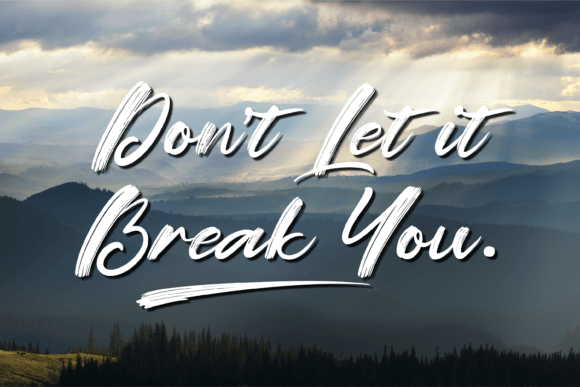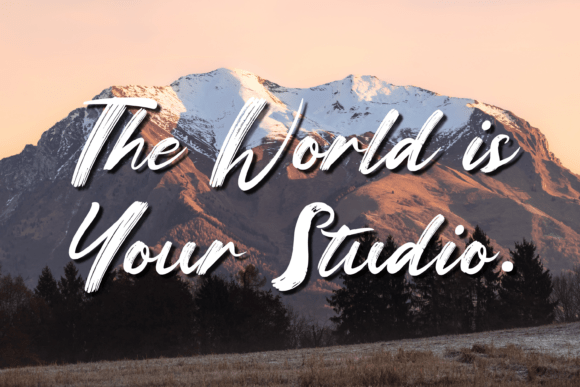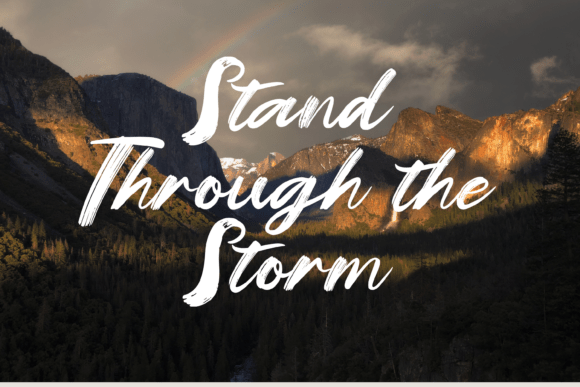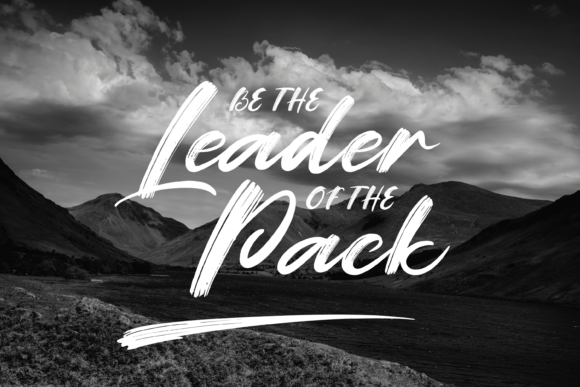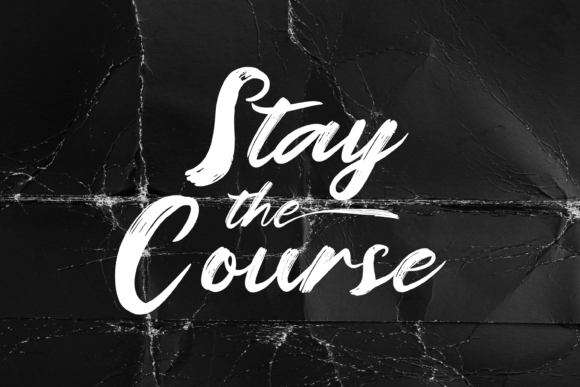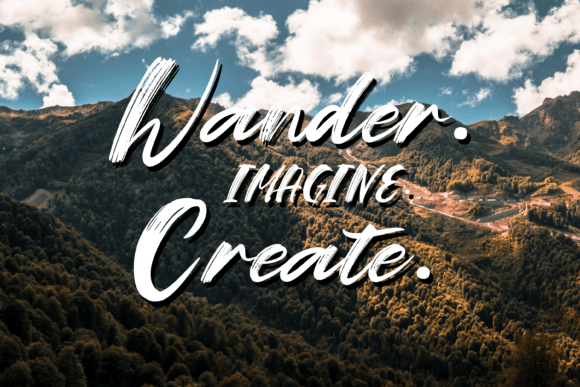
Introduction to Lumra Font
Have you ever stared at a blank canvas, waiting for the perfect words to come to life? That’s where the magic of typography begins, and the right font can make all the difference. As a designer, you know how crucial it is to find the perfect match for your creative project. That’s why we’re excited to introduce you to the Lumra Font, a stunning brush script that’s about to revolutionize your designs.
With its bold, expressive strokes and just the right touch of imperfection, Lumra Font brings a personal, artistic edge to your typography. Whether you’re crafting logos, quotes, invitations, or packaging, this font is sure to give your design a unique, high-quality feel that’s hard to find with free downloads. Plus, its transparent background makes it easy to customize and integrate into your design resource.
Key Features of Lumra Font
- High-quality, professional font suitable for creative projects and design resources.
- Features a transparent background, making it ideal for use on images and graphics with complex backgrounds.
- Comes in a range of sizes and resolutions, including 72 DPI and 300 DPI, to suit various design needs.
- Unique, modern design that adds a touch of elegance to any project or document.
Honest Review: Lumra Font
As a designer, I’m always on the lookout for high-quality design resources to elevate my creative projects. Recently, I had the chance to try out the Lumra Font, and I’m excited to share my honest review.
What works well: ✨ The Lumra Font offers a clean and modern aesthetic that’s perfect for a wide range of design applications. The font is highly customizable, allowing for easy adjustments to size, color, and style. I appreciate that it’s available for free download, making it an excellent resource for designers of all levels.
What’s not so great: ⚠️ While the font itself is impressive, I found that it can be a bit finicky to work with on certain backgrounds. A transparent background option would be a welcome addition to make it easier to use in complex design projects.
Overall, I’m pleased with the Lumra Font and would recommend it to designers looking for a high-quality, versatile font for their creative projects. With a little patience and experimentation, it’s a valuable addition to any design resource library.
- Perfect for modern design applications
- May require adjustments for certain backgrounds
Tips for Getting the Most Out of Lumra Font
Use the Lumra Font with a transparent background to create a subtle and elegant design. Experiment with different font sizes and styles to create visual interest. Use the Lumra Font in combination with other design resources to create a unique and eye-catching design.
The Lumra Font is perfect for use in creative projects such as logos, brochures, business cards, and social media graphics. It’s also great for use in presentations, reports, and other documents that require a high-quality font.
Does the Lumra Font come with a transparent background?
No, the Lumra Font does not have a transparent background. However, you can easily create a transparent background using image editing software like Adobe Photoshop or GIMP. This will allow you to use the font on any background.